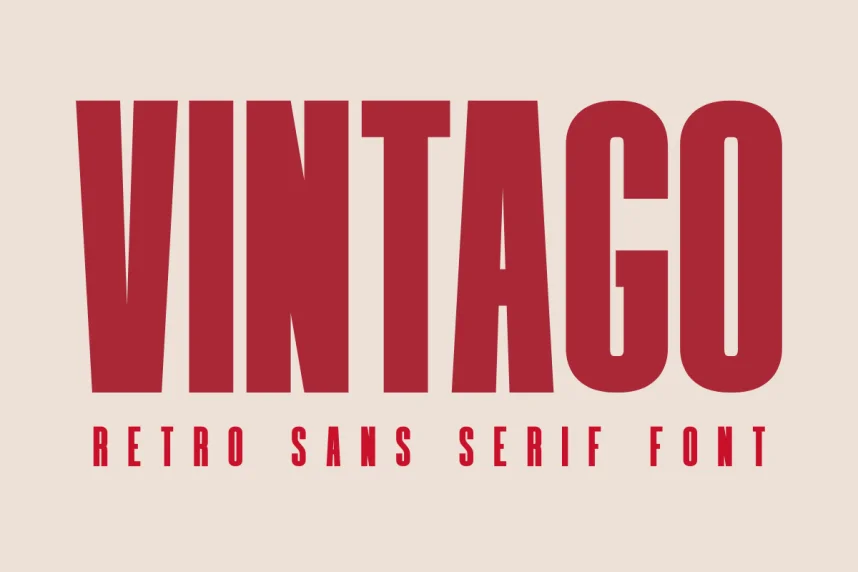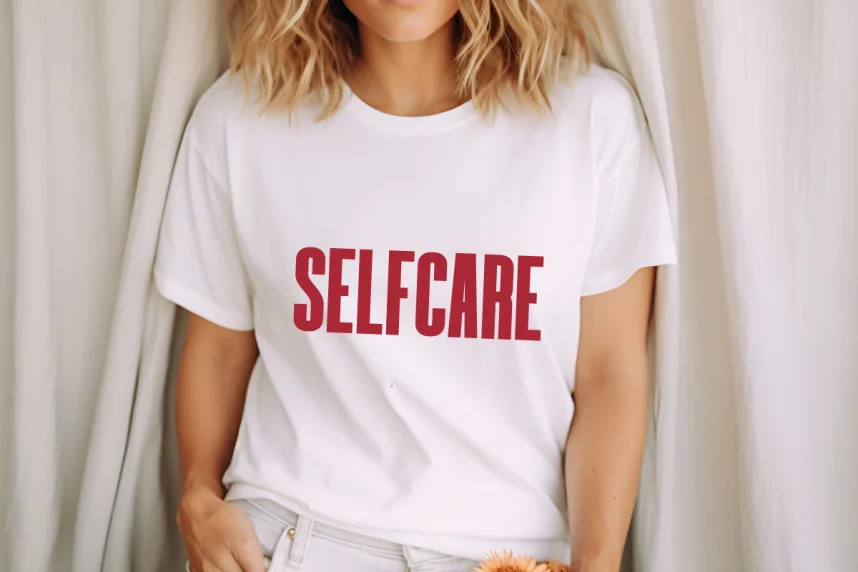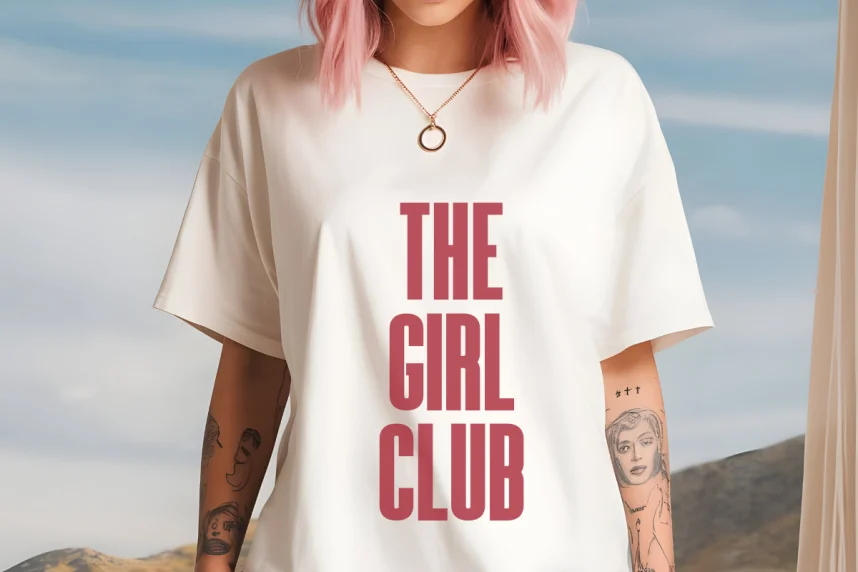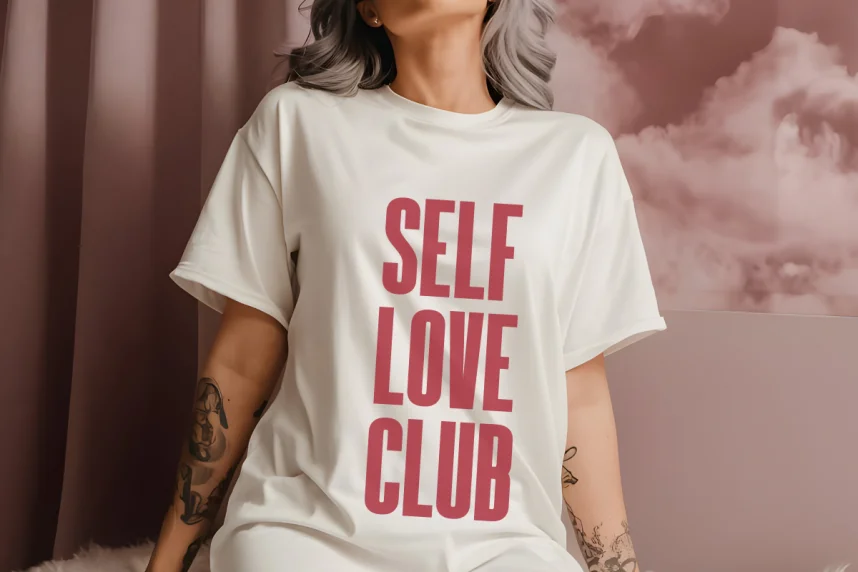
Vintage Condensed Font is a condensed display typeface created for space-efficient layouts with a classic tone. Designers often struggle with fitting bold headlines into narrow layouts. This font addresses that issue with tall letterforms and compact width.
This font belongs to the condensed display category. Its letterforms feature strong vertical emphasis, even stroke weight, and minimal decorative elements. The condensed structure allows longer words to fit into limited horizontal space without losing legibility.
Vintage Condensed works well for posters, editorial headlines, branding, packaging, and signage. It performs best at medium and large sizes. Designers often pair it with a standard sans-serif for body text to maintain readability.